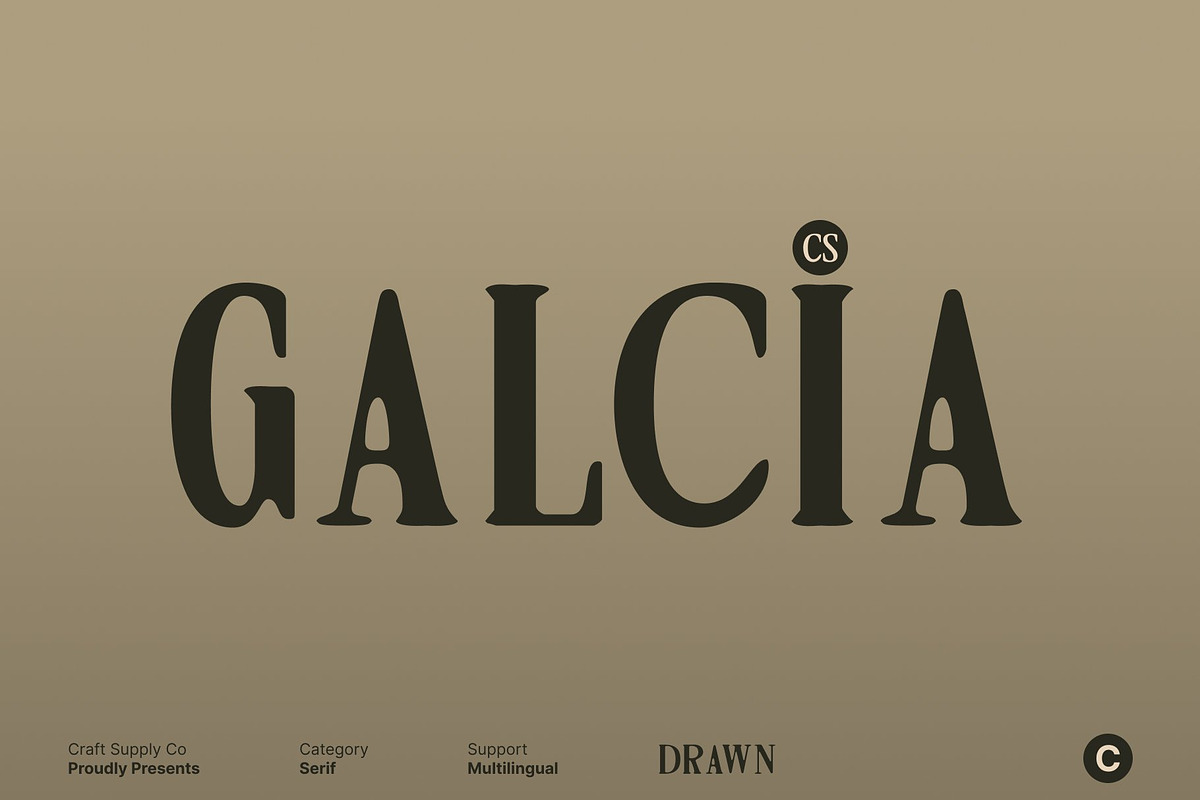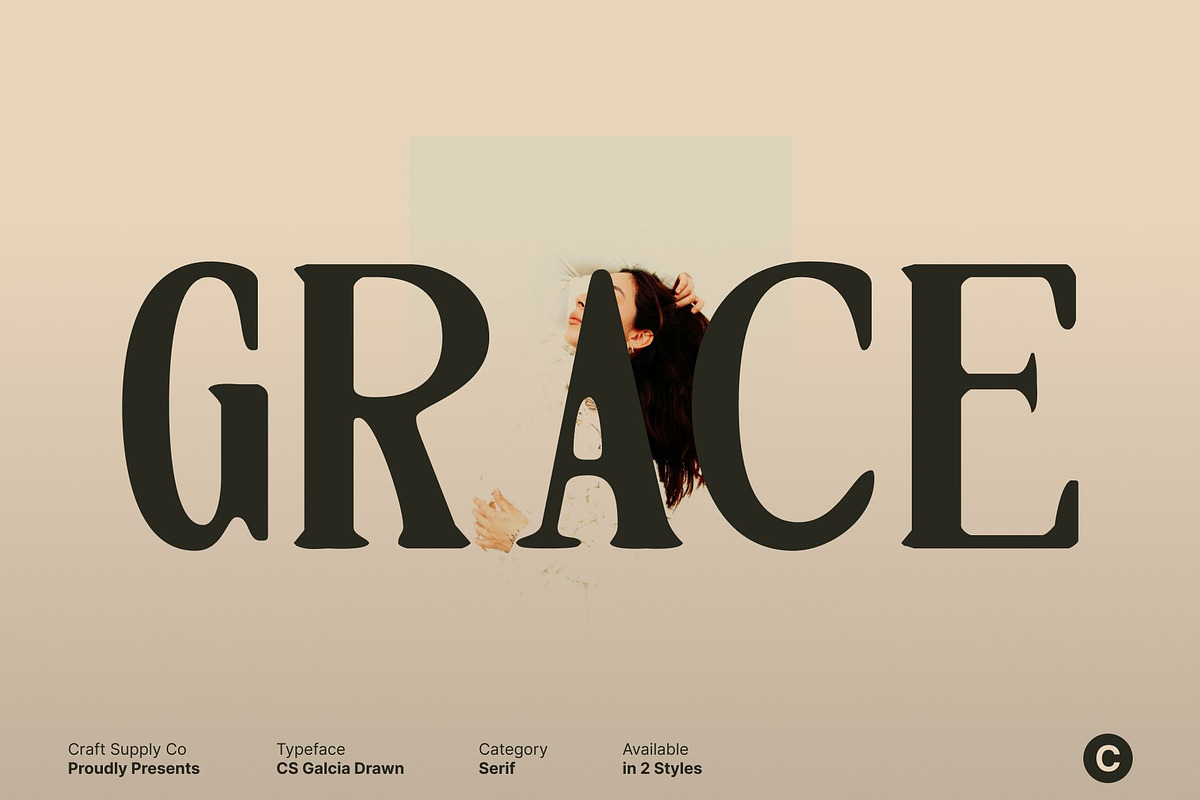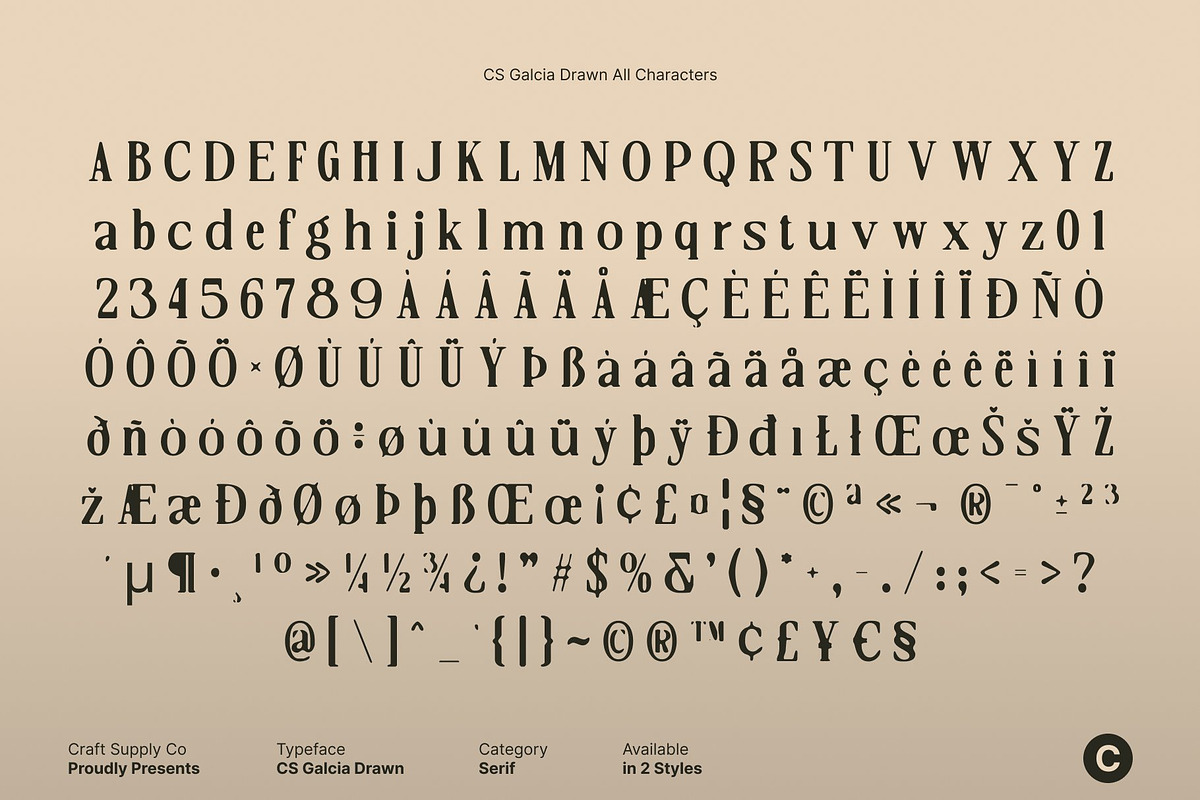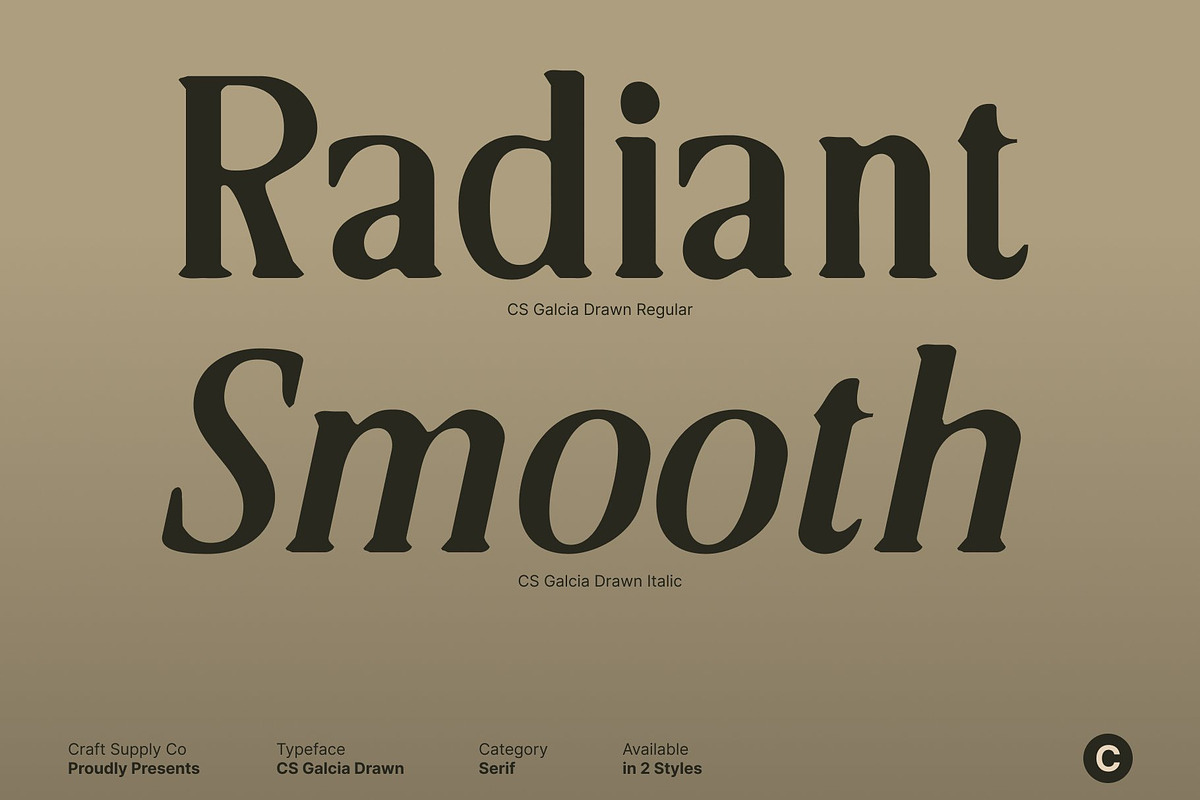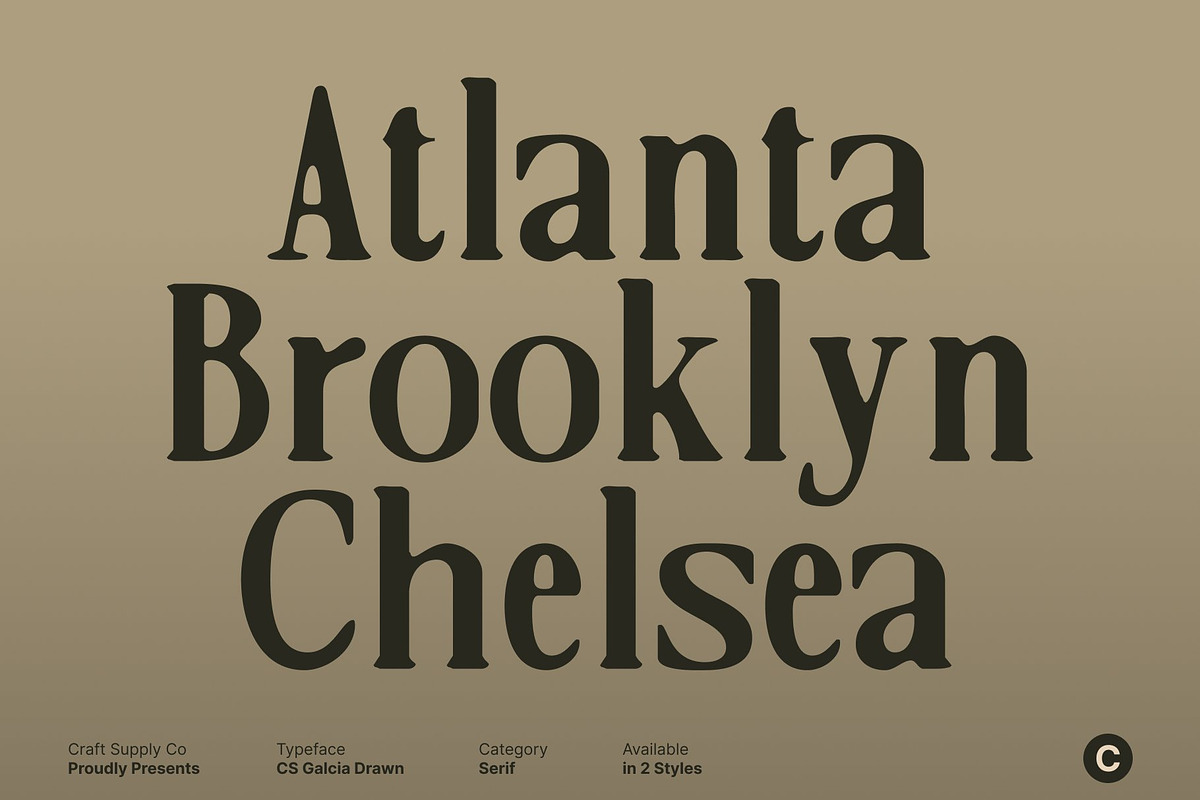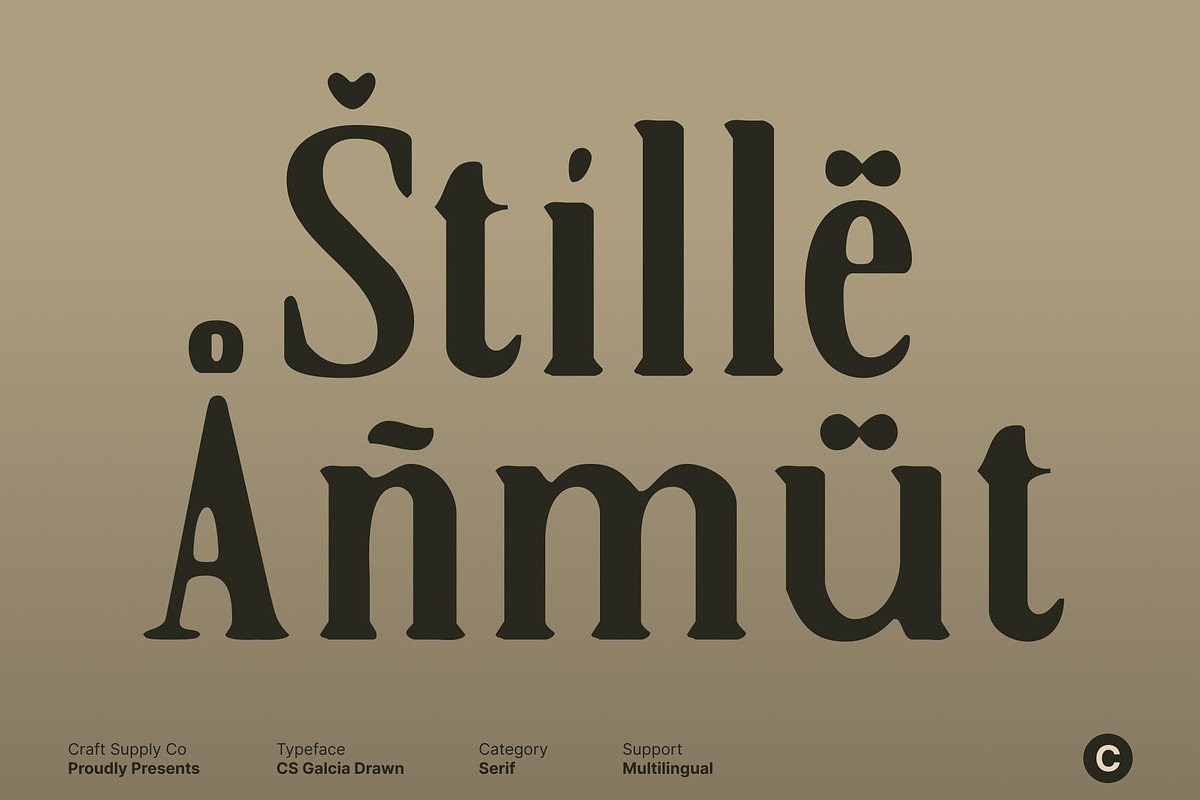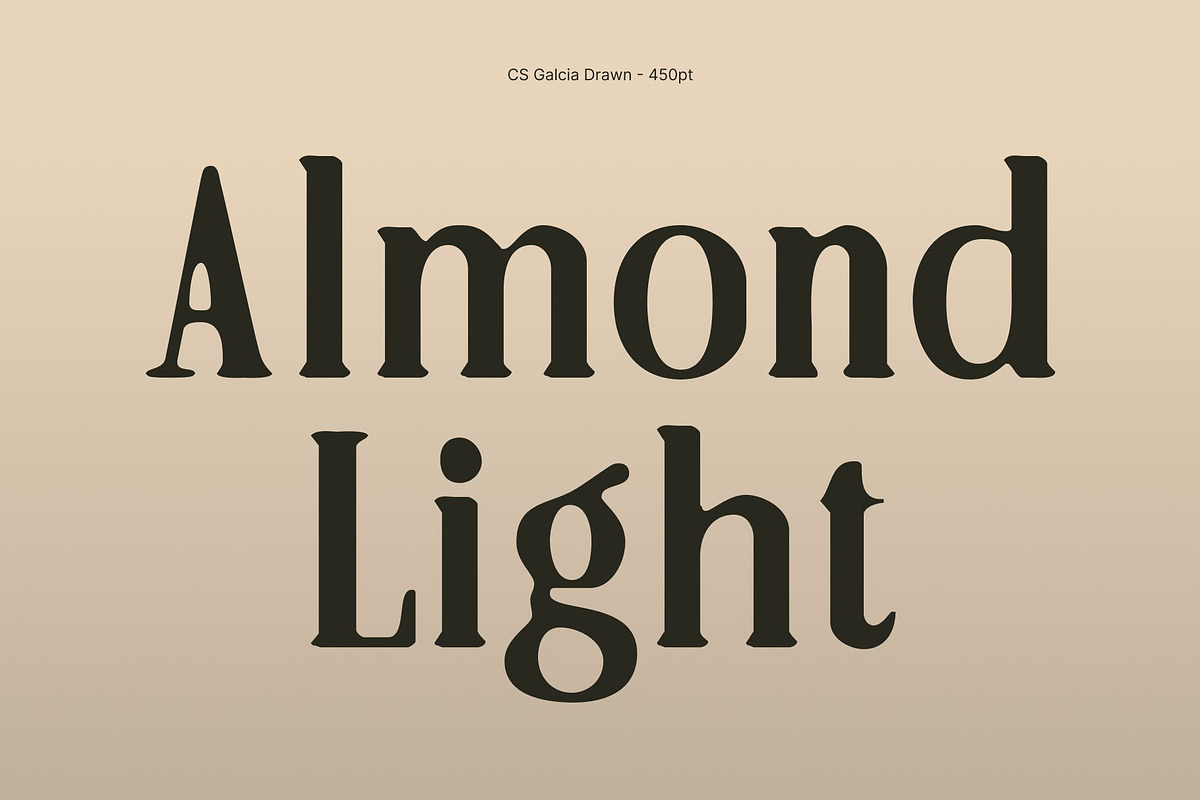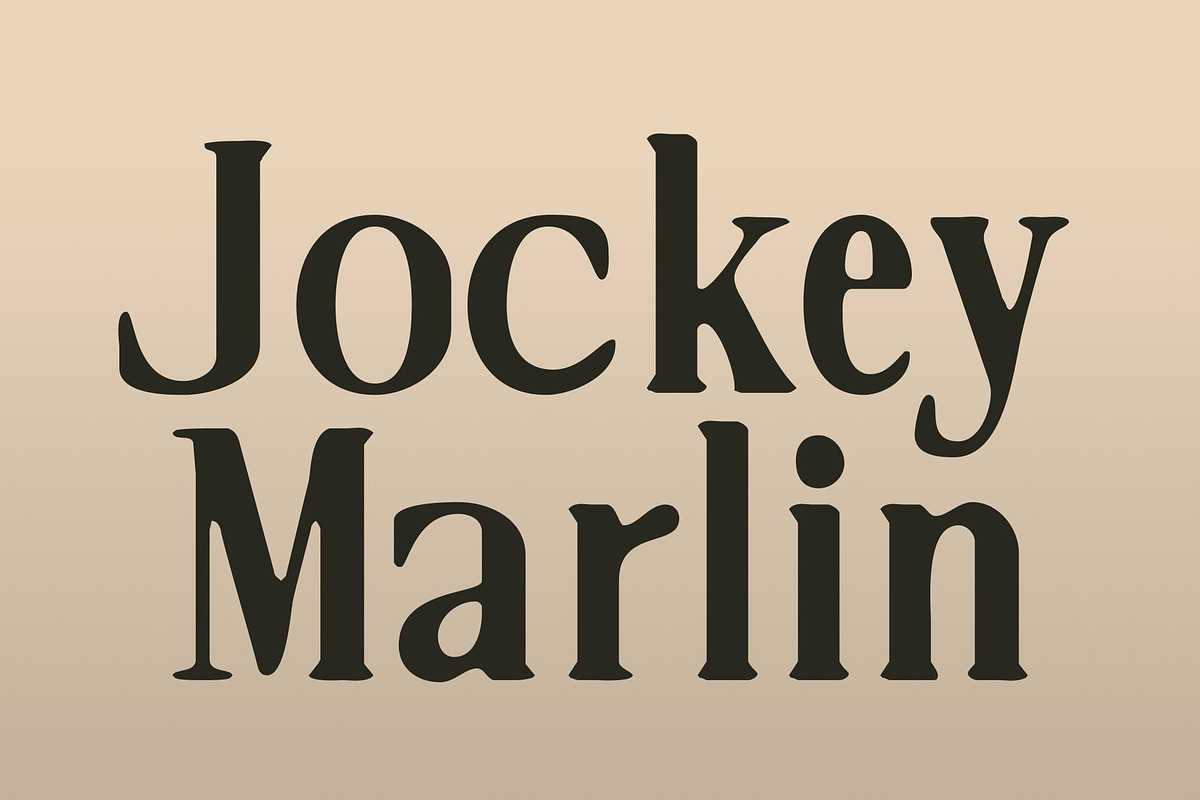
CS Galcia Drawn
CS Galcia Drawn – Bold Serif with Refined Hand-Drawn Artistry
Bold Structure with Artistic Precision This is a bold serif font that blends strong typographic structure with thoughtful artistic expression. Its confident forms and pronounced serifs create a striking presence that immediately elevates any layout. Designed with precision, this typeface brings clarity, balance, and sophistication to modern visual compositions while retaining a powerful, authoritative look.
Hand-Drawn Detailing for Softened Elegance The drawn handmade detailing adds a layer of warmth and subtle texture, softening the bold framework of the font. Each character reveals gentle, organic touches that introduce humanity and charm without compromising the font’s strength. This carefully crafted texture makes this font feel polished yet approachable, offering the perfect interplay of structure and softness.
Perfect for Branding with Strong Visual Identity This font excels in branding projects that require solidity, elegance, and artistic personality. Its bold serif style ensures strong recognition, while the hand-drawn details create a memorable, distinctive character. Whether used for logos, packaging, or brand titles, this font delivers a refined identity that feels both sophisticated and expressive.
Ideal for Editorials and Digital Projects Balanced and beautifully crafted, this font performs exceptionally well in editorial layouts, digital interfaces, and creative visual storytelling. Its bold presence enhances headlines, while its handmade texture adds depth to digital assets and promotional materials.
- CS Galcia Drawn Regular
- CS Galcia Drawn Italic